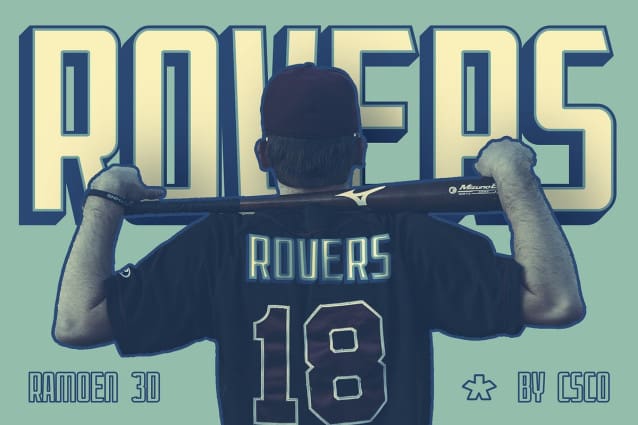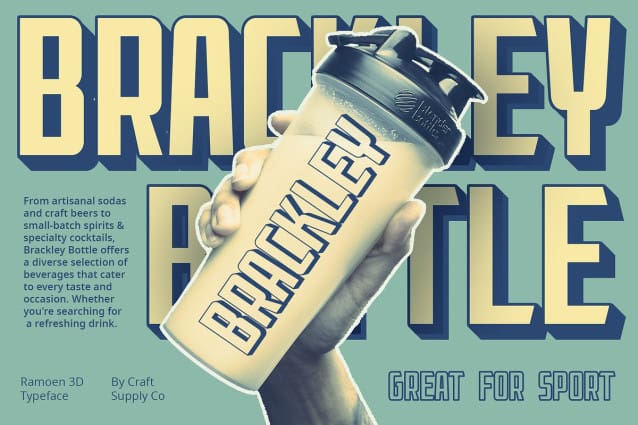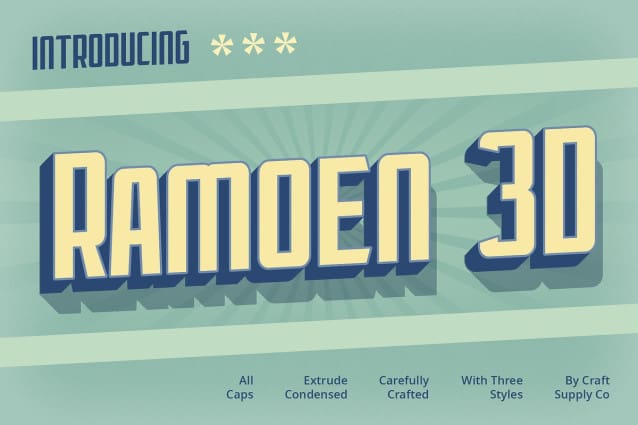
Ramoen 3D Font
Ramoen 3D Font: Commanding Sans Serif Display. Bold and Condensed Ramoen 3D features a bold and condensed sans serif design that exudes strength and authority. Its compact form commands attention and makes a bold statement in any display project.
3D Effect for Added Impact With its striking 3D effect, This font elevates the font’s presence to new heights. Each character appears three-dimensional, enhancing its visual impact and making it ideal for impactful displays.
Perfect for Display Needs Tailored for display purposes, This font is well-suited for a wide range of applications, from headlines to posters. Its bold and condensed form ensures maximum visibility and readability in various contexts.
Versatility in Application Beyond its commanding appearance, This font offers versatility in application. Whether used in advertising, branding, or digital design, its bold and condensed style adds a touch of boldness and professionalism.
Boldness Redefined This font stands out as a bold and commanding sans serif display font. With its condensed form and striking 3D effect, it makes a powerful statement in any display project, conveying strength, authority, and impact. Step into the world of This font and redefine boldness in your designs.